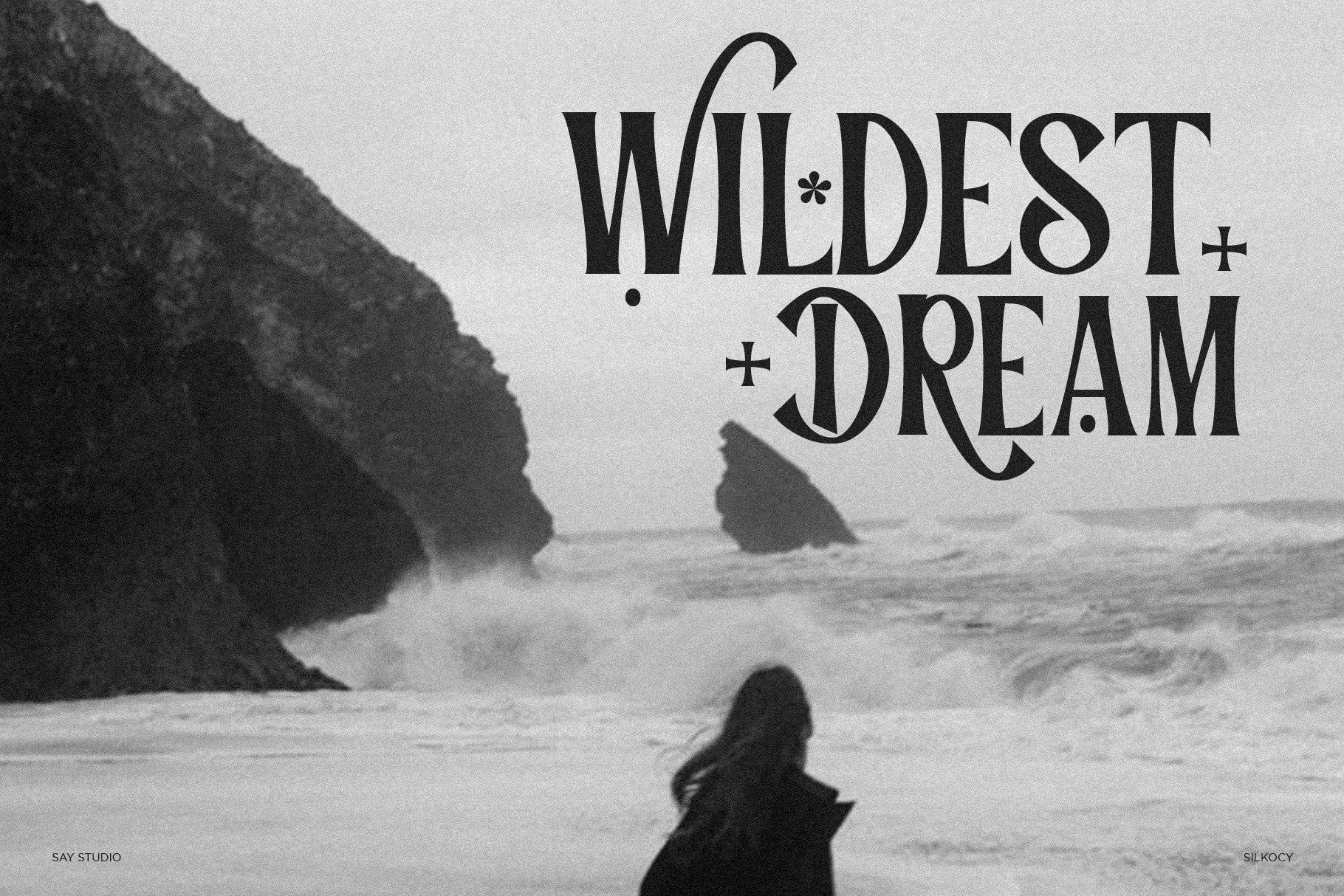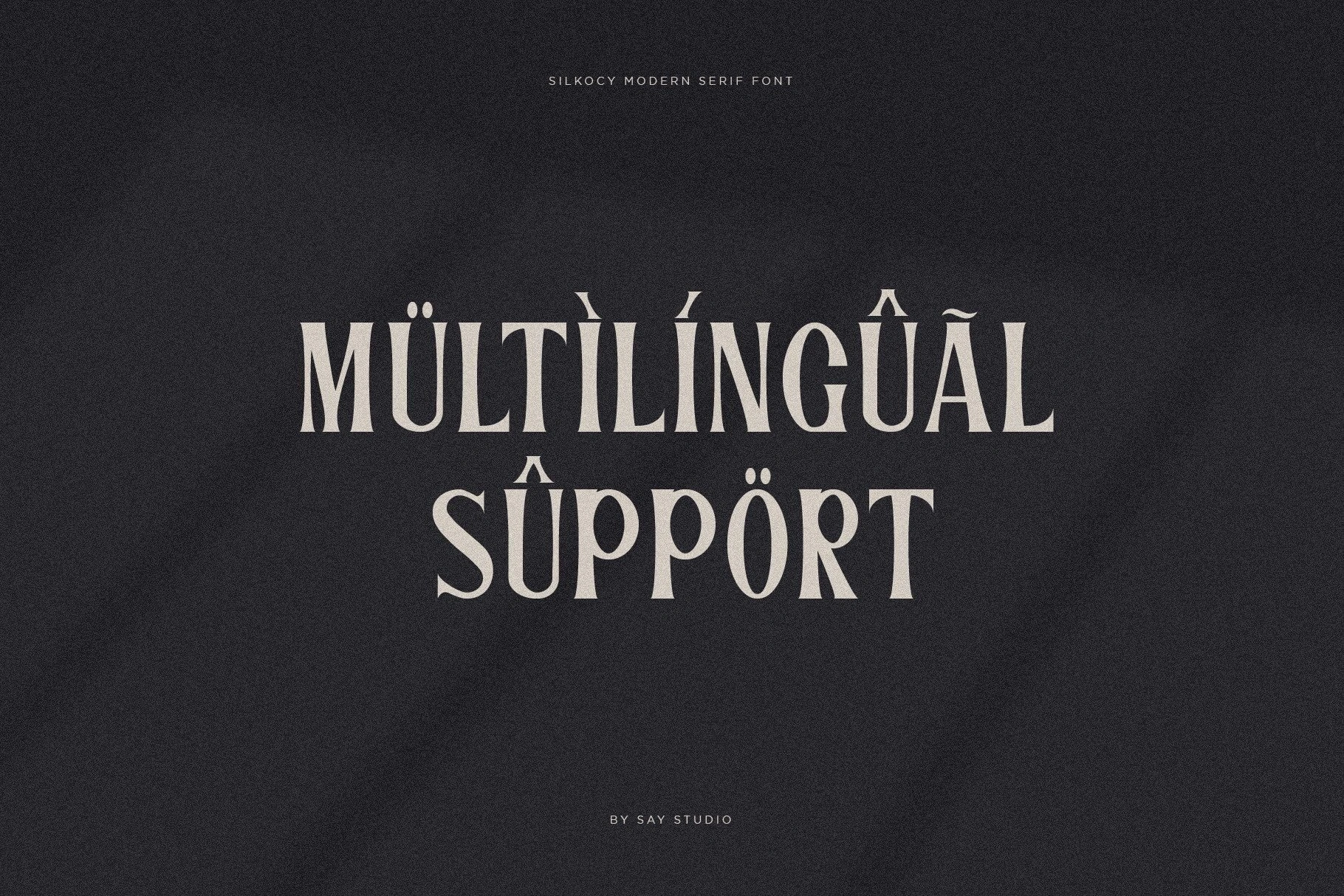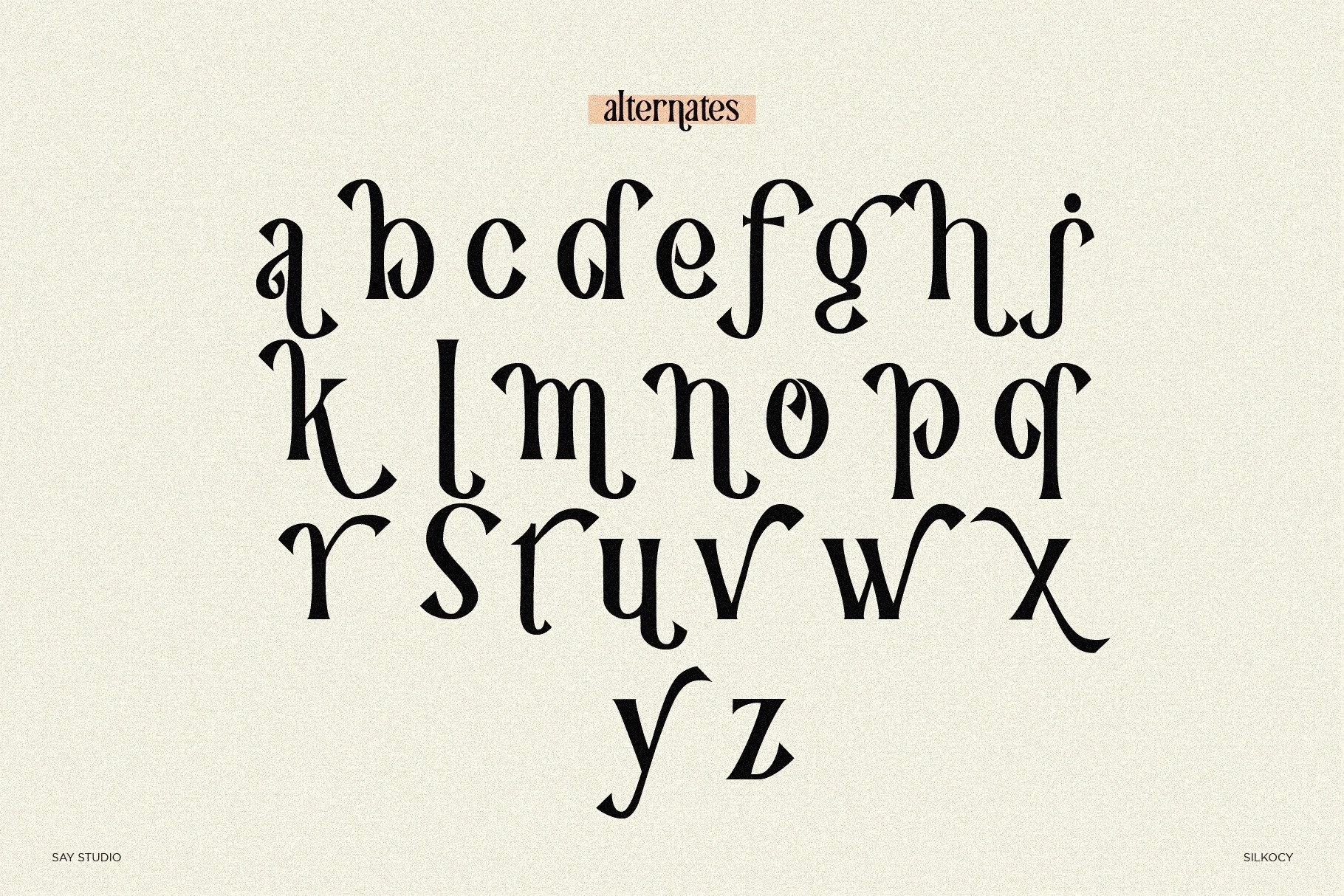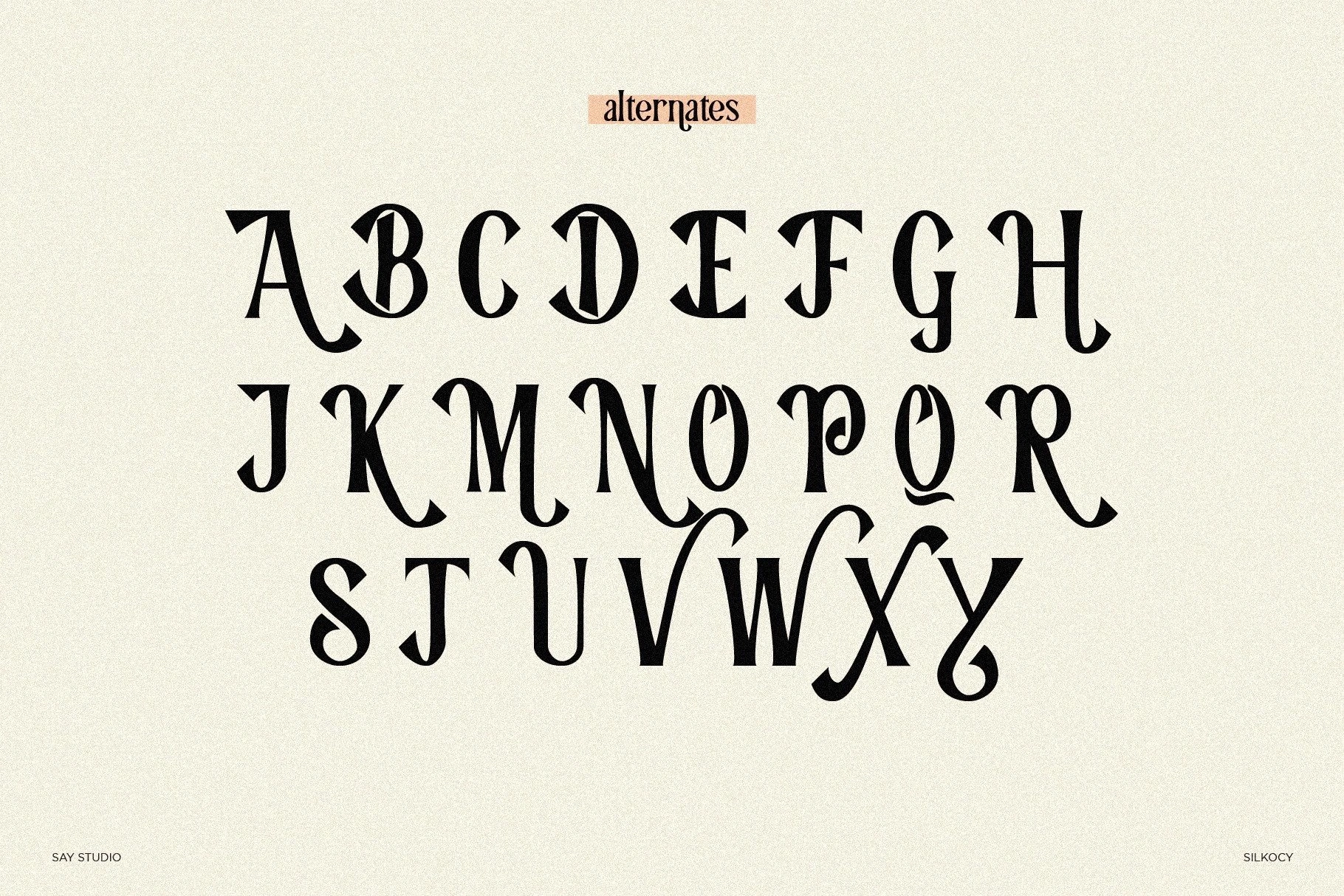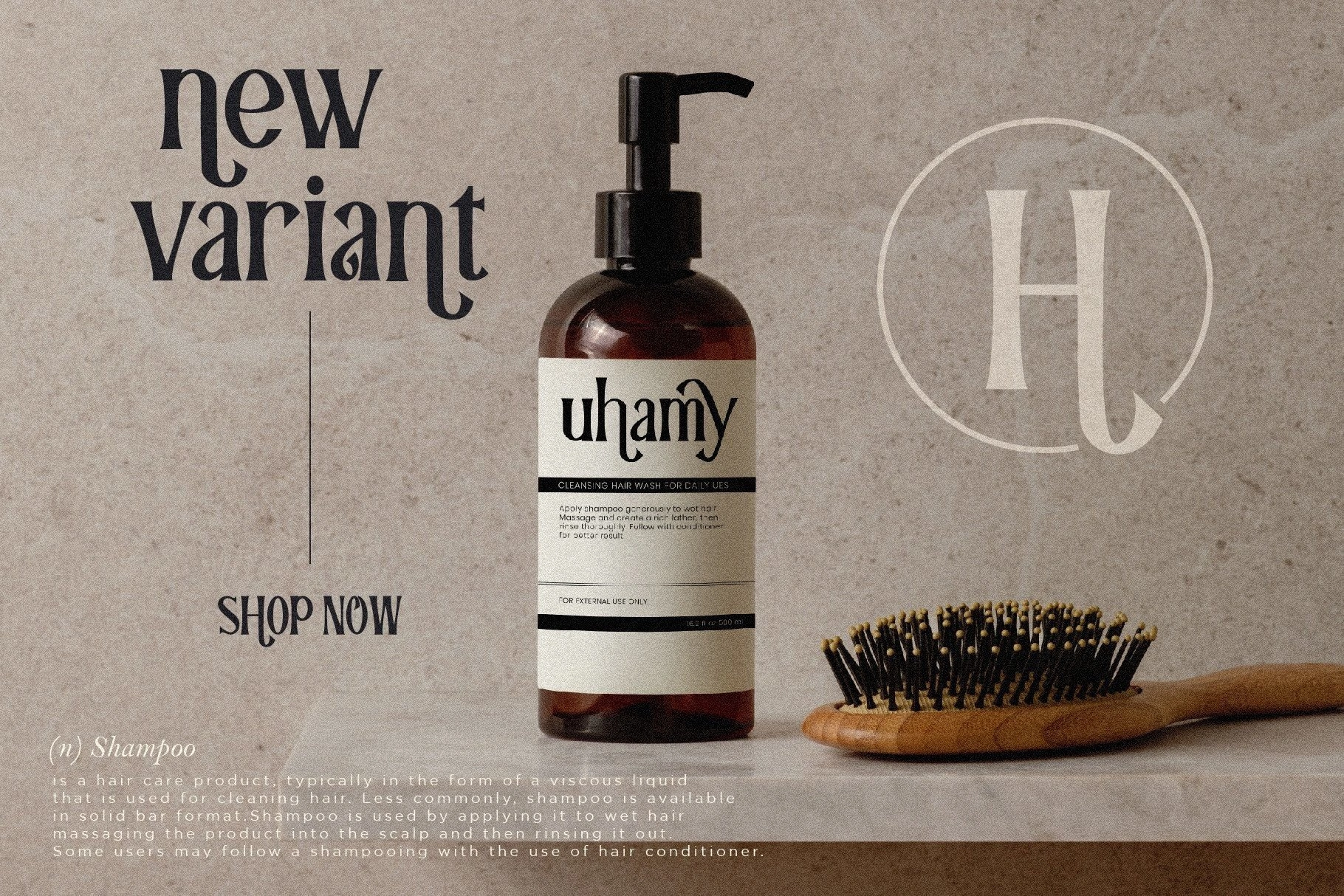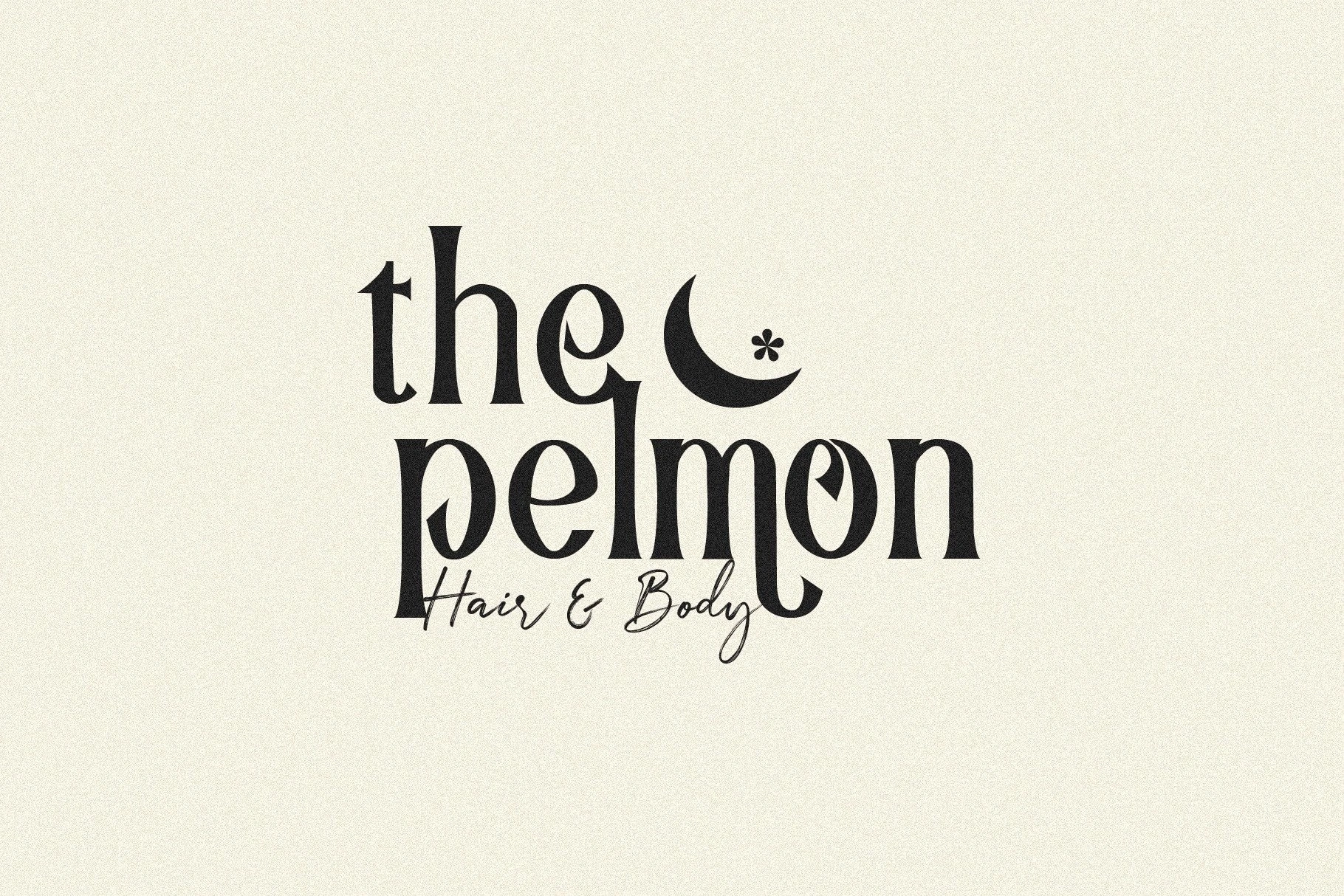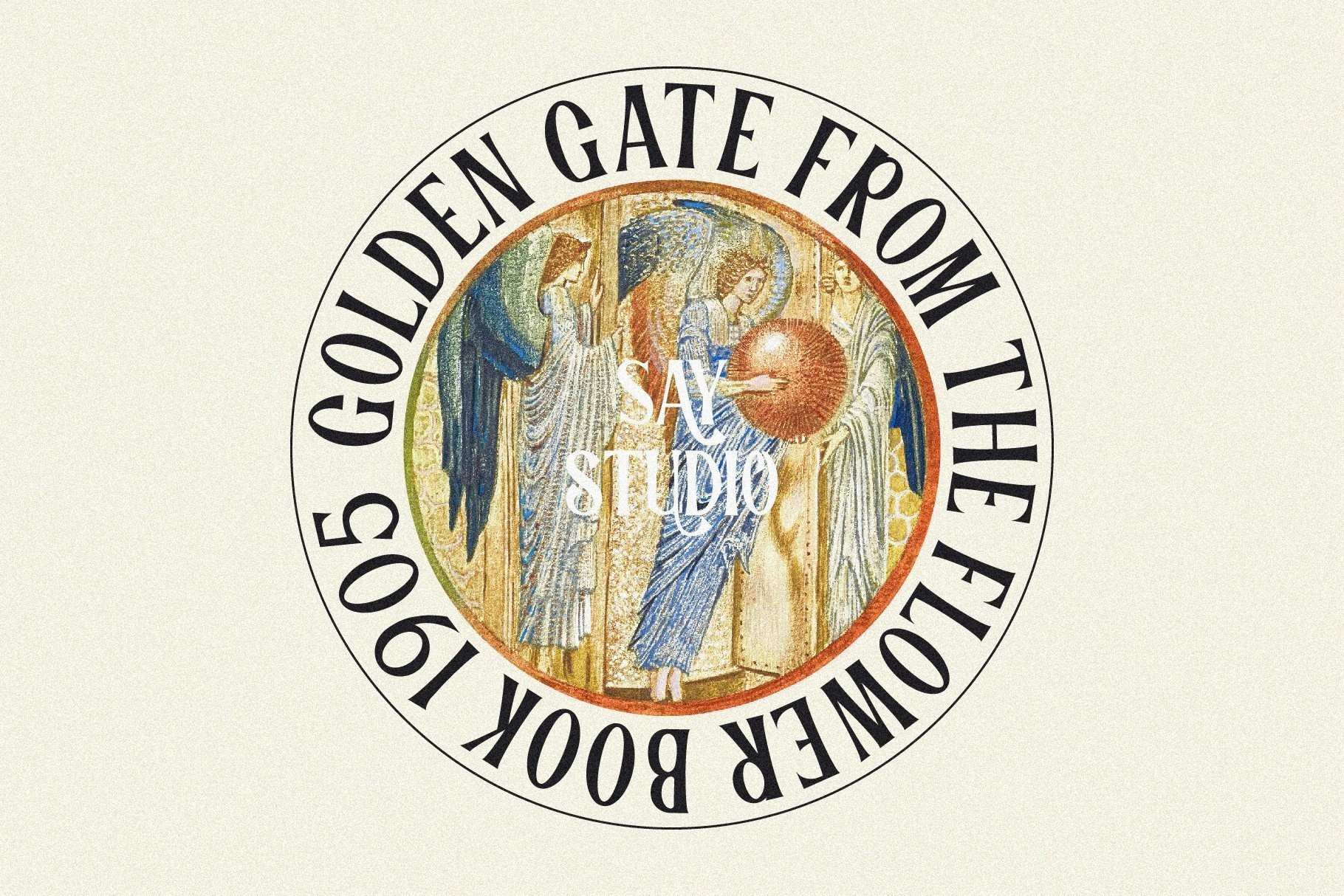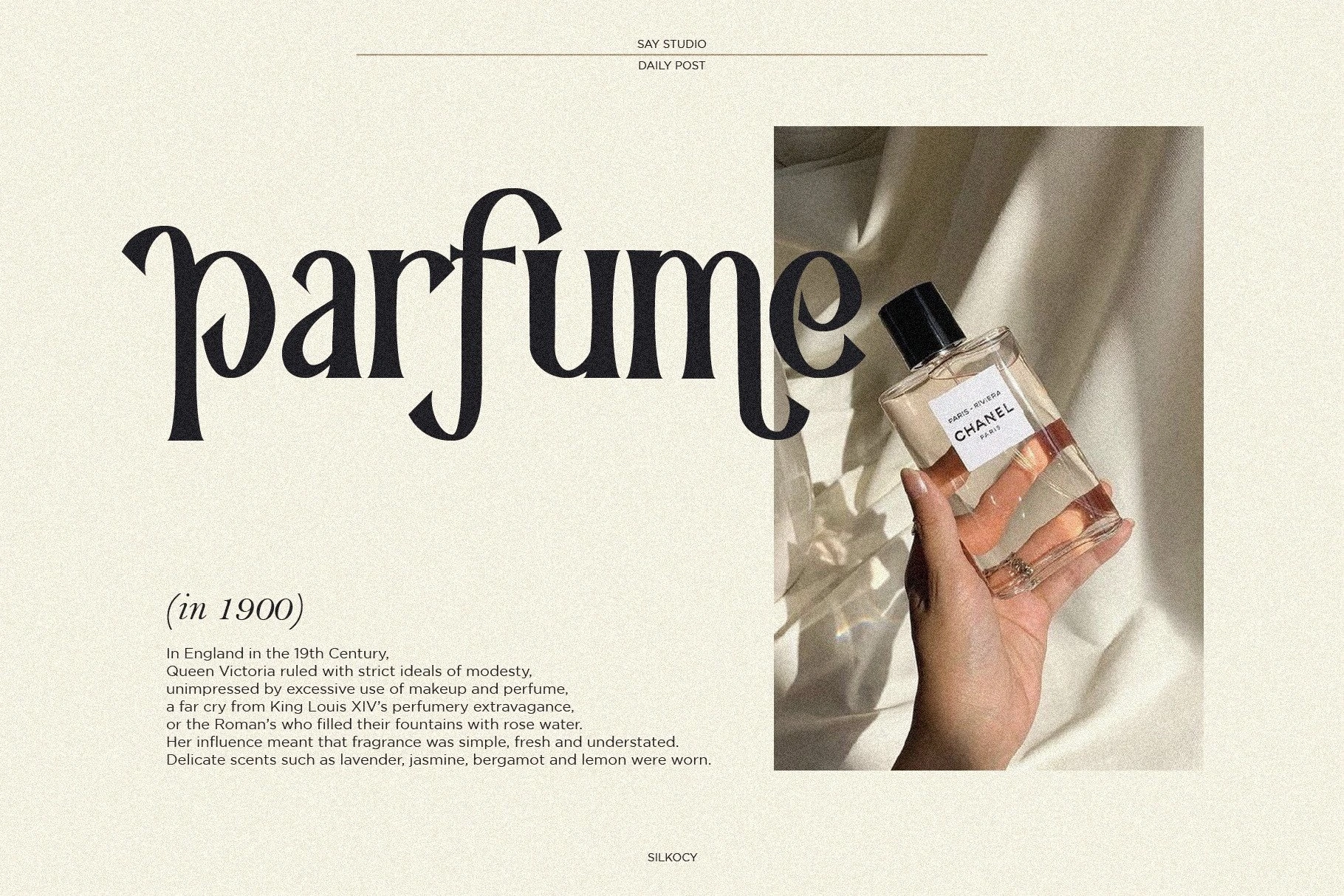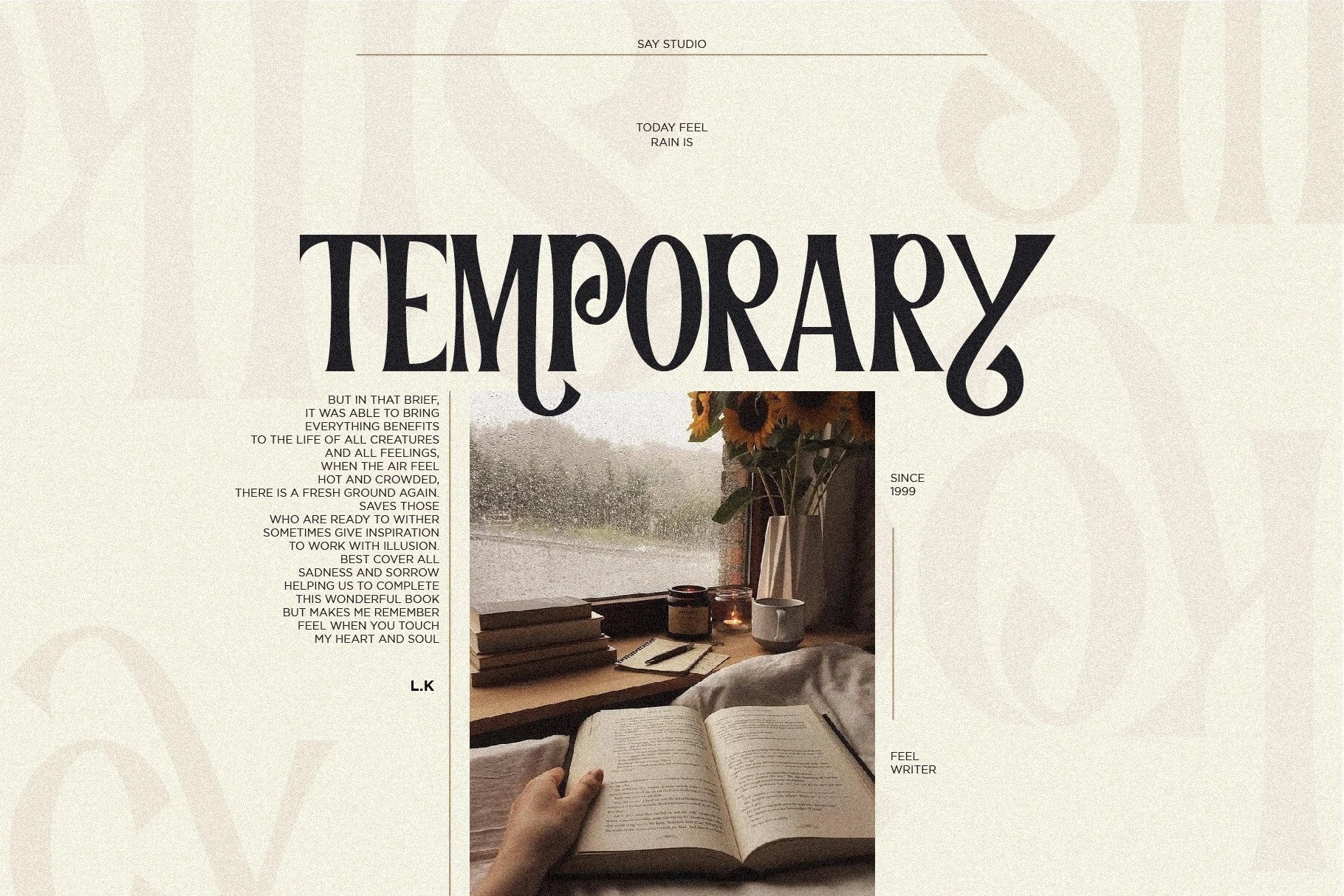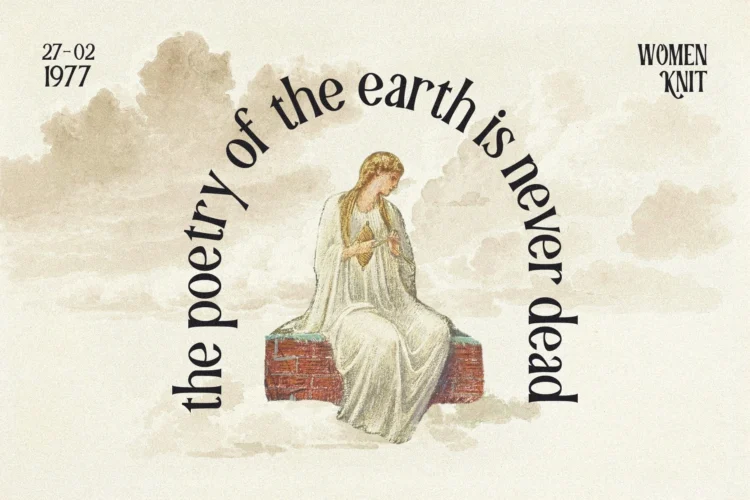
Silkocy – Serif Font
Silkocy is a beautifully Modern Condensed uppercase and lowercase typeface that works best as a focal display text (think logos, headers, pretty quotes, calls to action, etc.).
The upper and lowercase give it great versatility, but I honestly just can’t get over a tightly kerned all caps. It’s too good.Silkocy also has 61 alternative uppercase and lowercase unique letters which you can use according to your needs or desires.
- Alternates Letter (Uppercase and Lowercase)
- Foreign language support